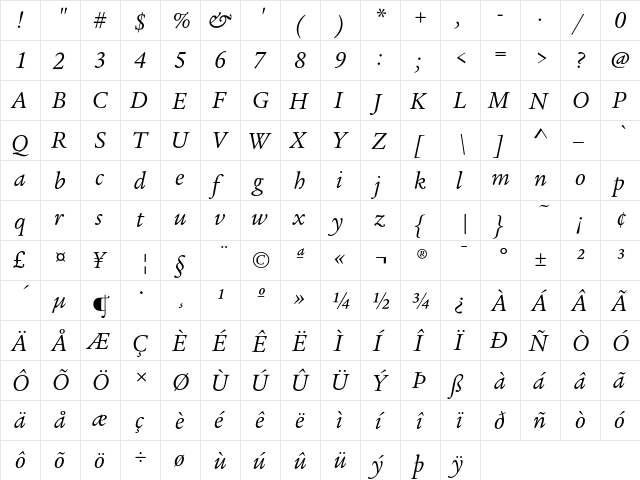
LegacySerifEF BookItalic
Design Context for LegacySerifEF Typeface
LegacySerifEF brings classic typographic sensibility to the table — its serifs and measured letterforms reflect centuries of print heritage. The dynamic lean of this cut emphasises speed and emphasis in any layout.
Pro Tip: Set LegacySerifEF with slightly loose tracking in headlines to let each letterform's detail read clearly at display sizes.